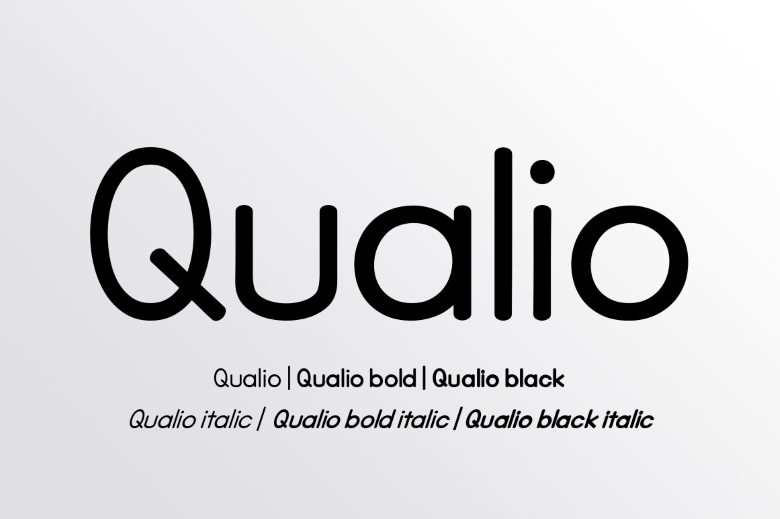
Qualio Font
Qualio is a clean contemporary sans serif typeface that fall under the Qualio category. It is visually very simple, but it looks elegant, and very easy to read. It is available in six types, so they combine ideally, and yet they can serve as rather powerful single types as well.
Qualio Sans Serif Font Family